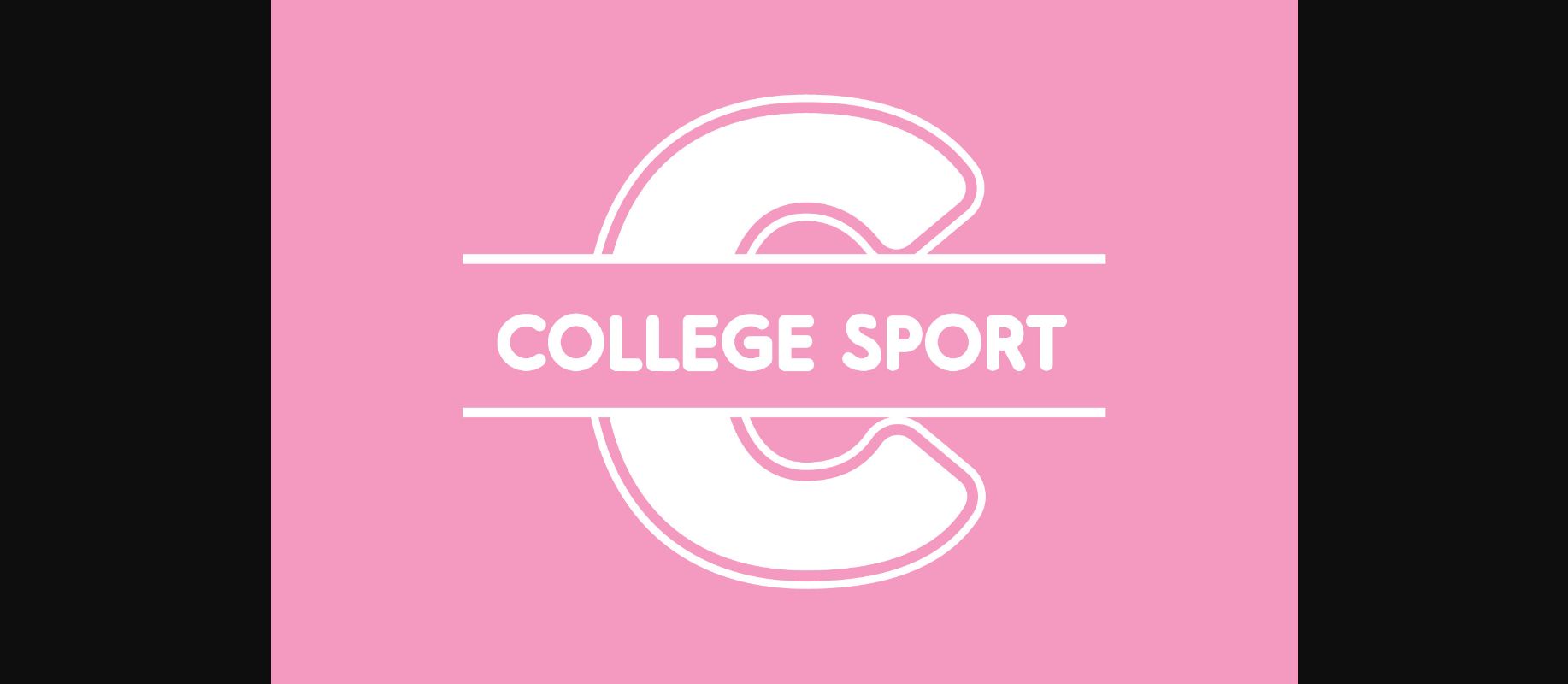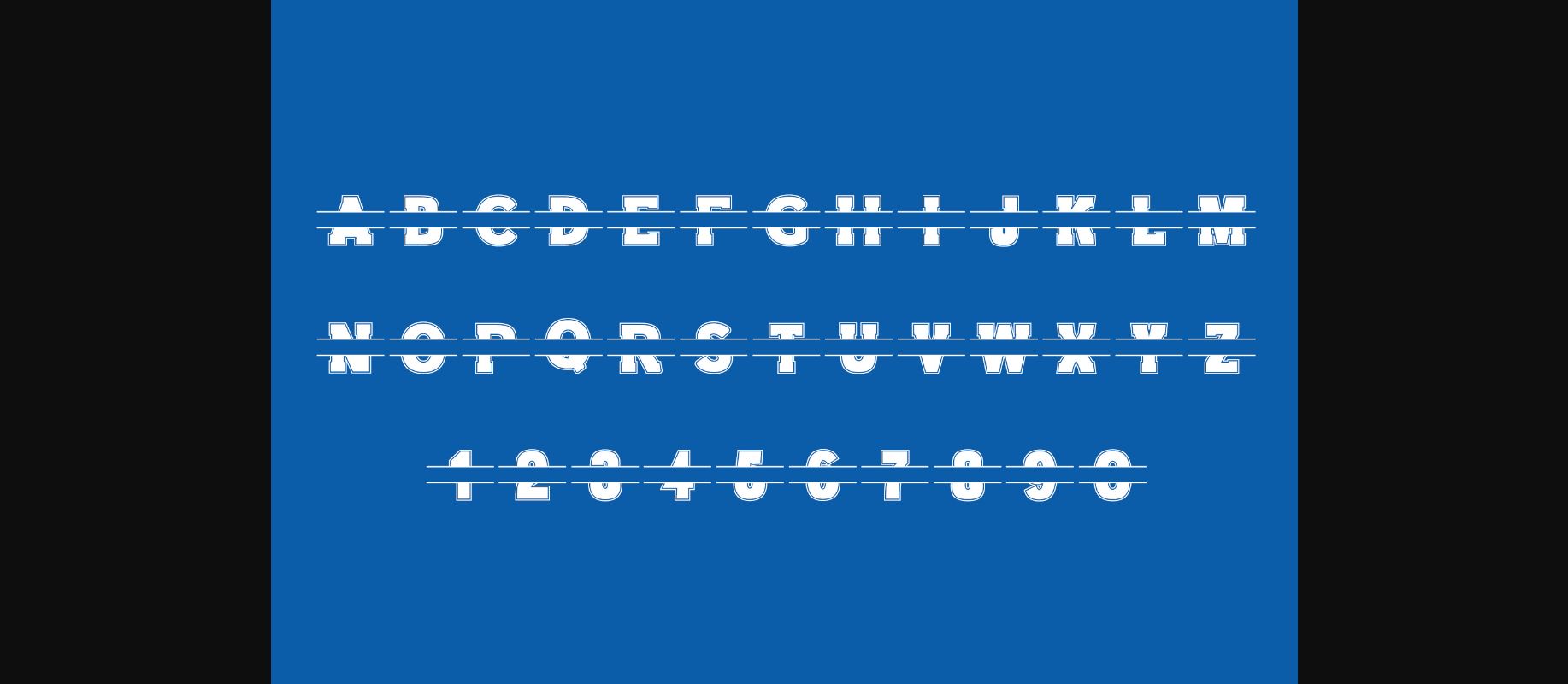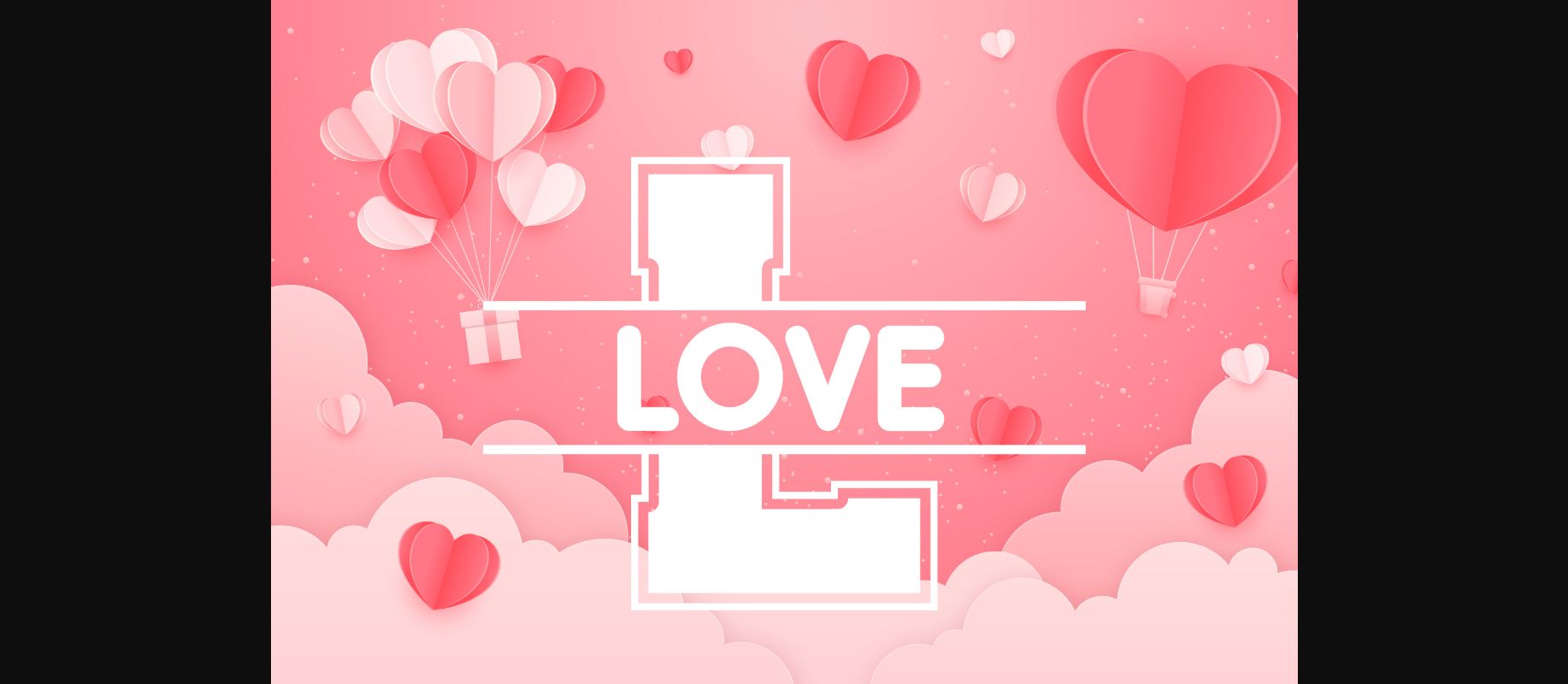
About College Sport Font
College Sport is a bold and thick lettered decorative font. It is incredibly fitting for sporting or racing designs. Have fun with this beautiful font and explore its endless variations.